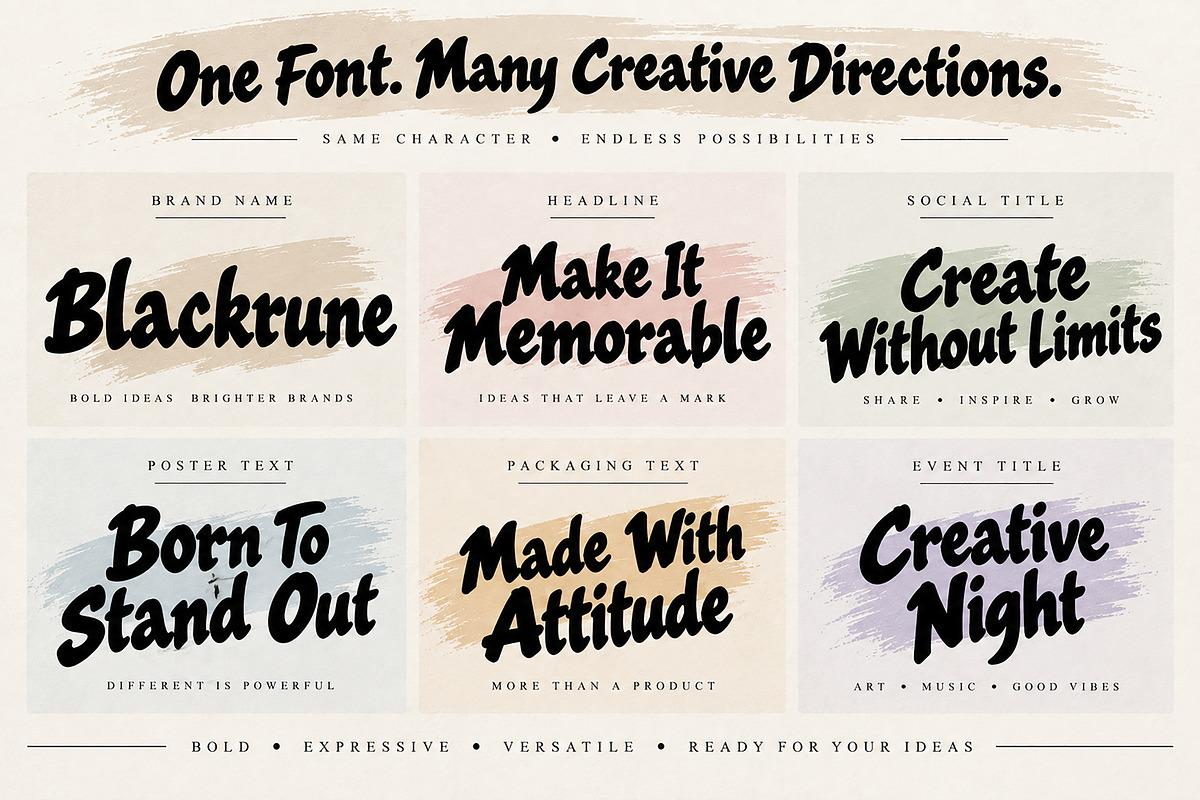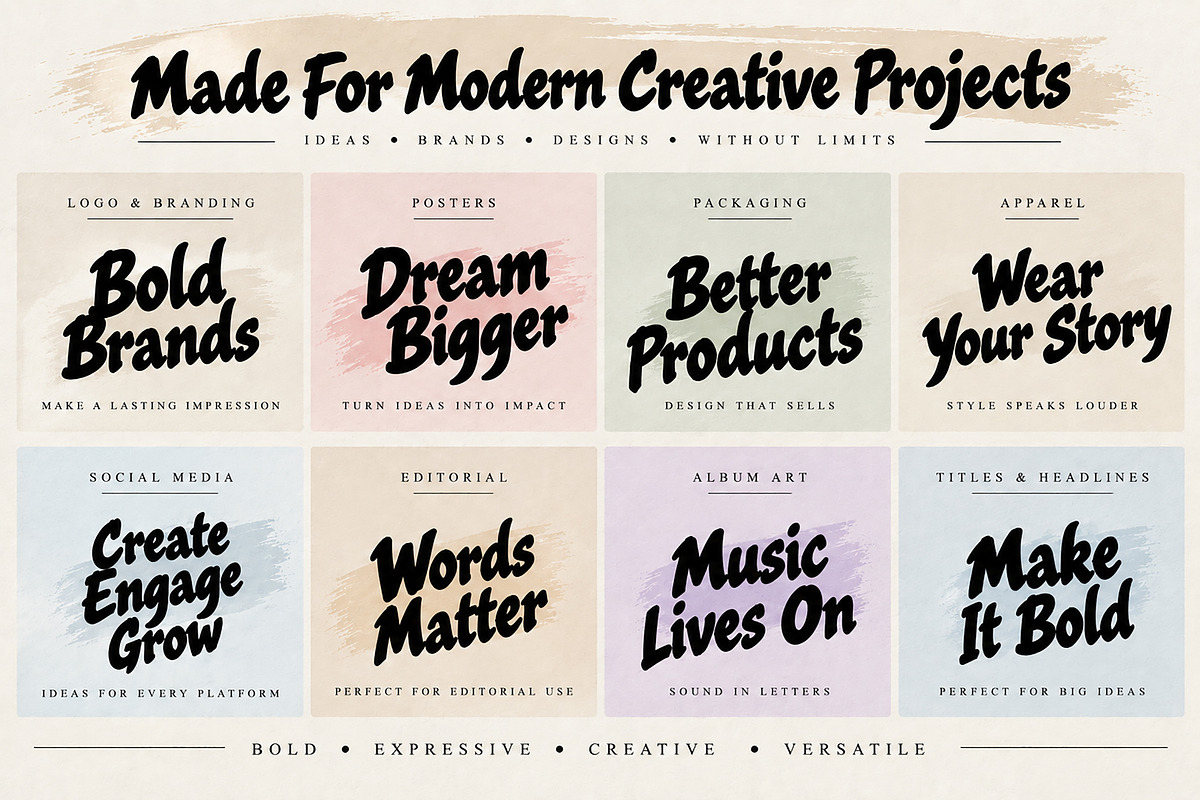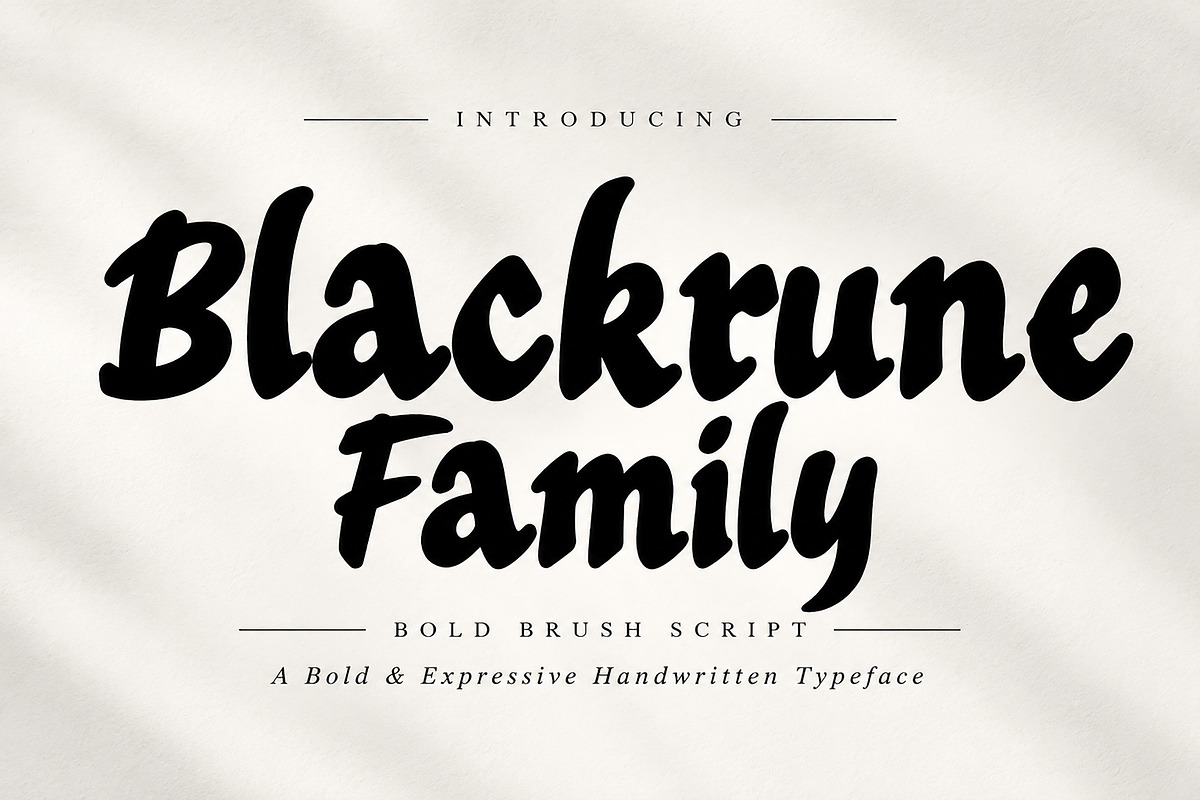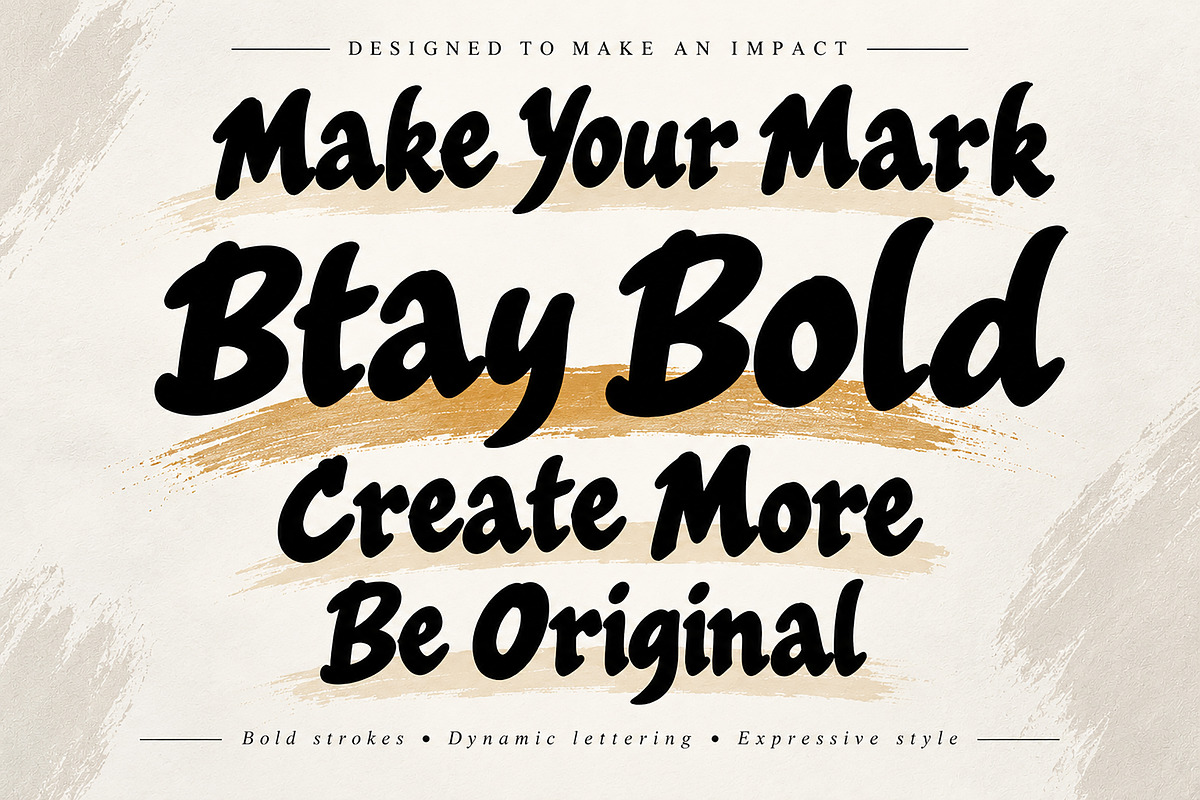
Blackrune Family
Blackrune Family – Bold Brush Script Font
Make a bold statement with Blackrune Family, a powerful and expressive brush script typeface designed to bring energy, personality, and a handcrafted feel to your creative projects.
With its bold strokes, dynamic letterforms, and distinctive handwritten character, Blackrune Family is perfect for designs that need a strong visual presence while maintaining an authentic brush-lettered aesthetic.
Logo & Branding
Posters & Flyers
Apparel & T-Shirt Designs
Packaging & Product Labels
Album & Music Artwork
Headlines & Titles
Editorial Designs
Invitations & Greeting Cards
Quotes & Typography Designs
Creative Advertising
Blackrune Family works especially well for bold headlines, brand names, statement typography, and eye-catching display designs.
Bring a bold, energetic, and handcrafted personality to your next creative project with Blackrune Family.